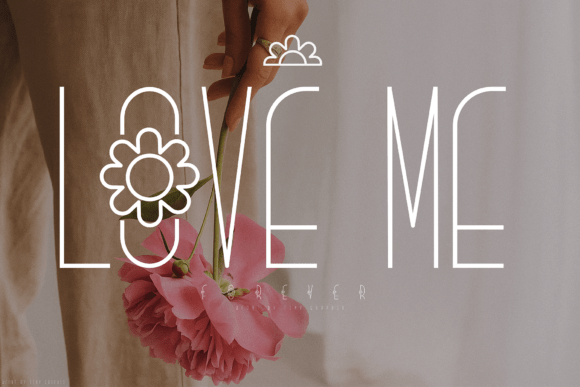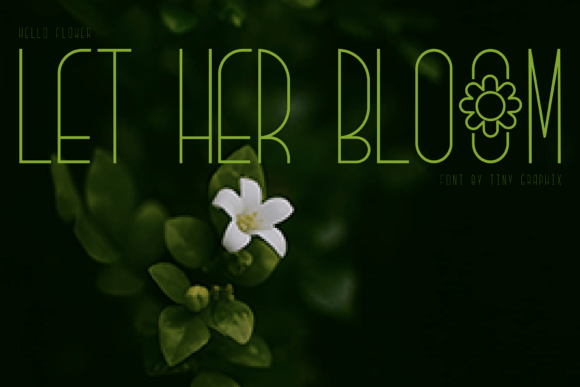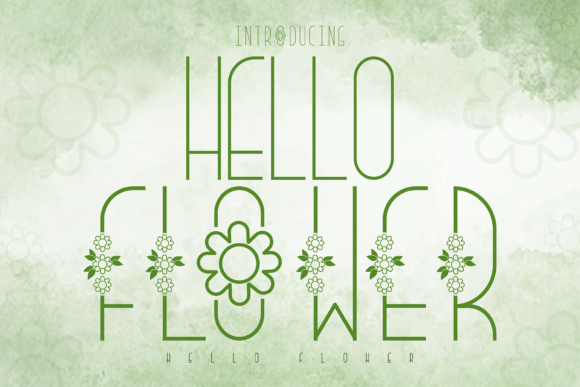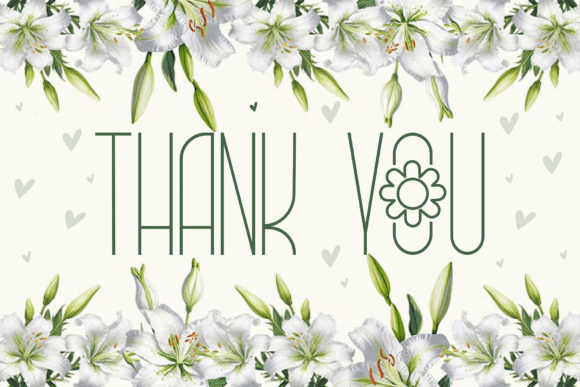
Bloom Font
✨ Bloom Typeface – A Whimsical Floral Decorative Font ✨
Bloom is a delicate and stylish decorative display font inspired by nature’s elegance. With thin, graceful strokes and charming floral details, this typeface is perfect for adding a fresh, organic touch to your designs.
a stylish and versatile decorative font that combines modern minimalism with a natural floral touch. With its elegant curves and delicate details, Bloom is perfect for designers and crafters who want to create eye-catching projects. Use it for logos, greeting cards, packaging, posters, scrapbooking, or any design that needs a soft yet striking personality. Bloom is more than just a typeface – it’s a creative tool that makes your designs flourish in any season. Bloom will bring your words to life with a natural, blooming beauty.
Bloom font is a way to make your designs blossom with creativity.